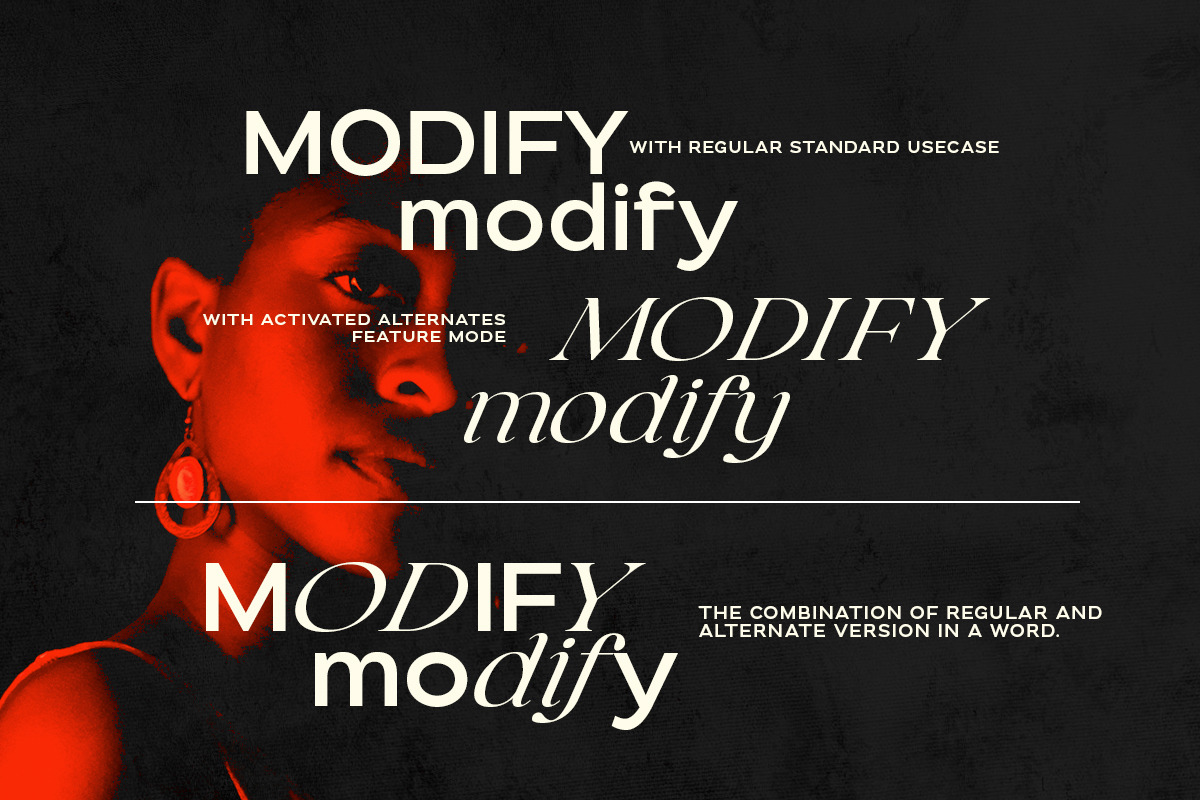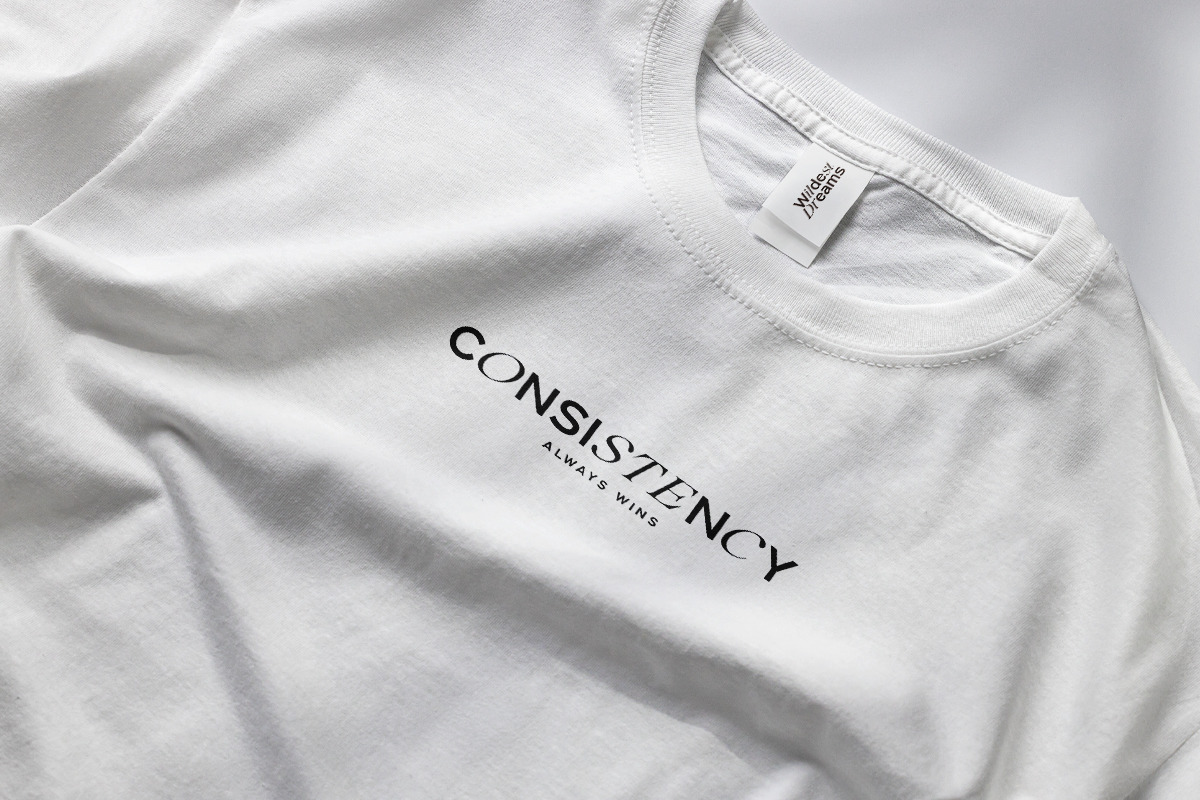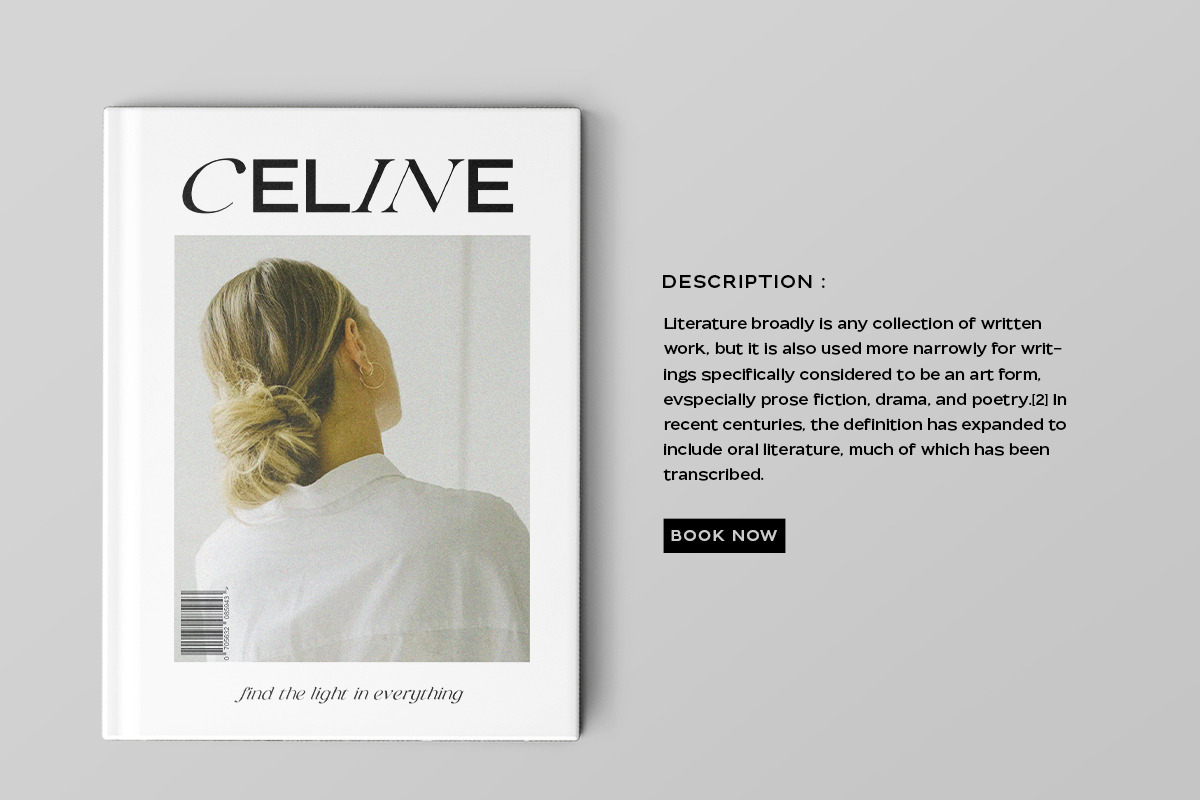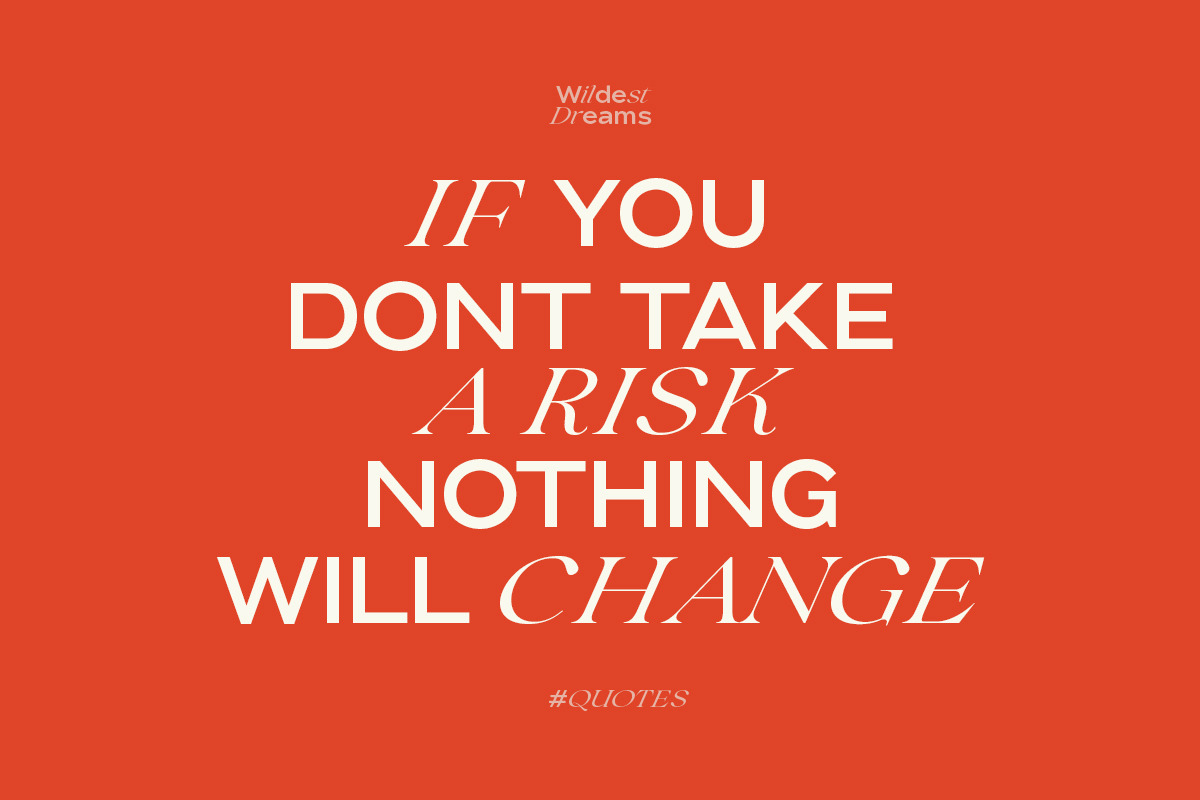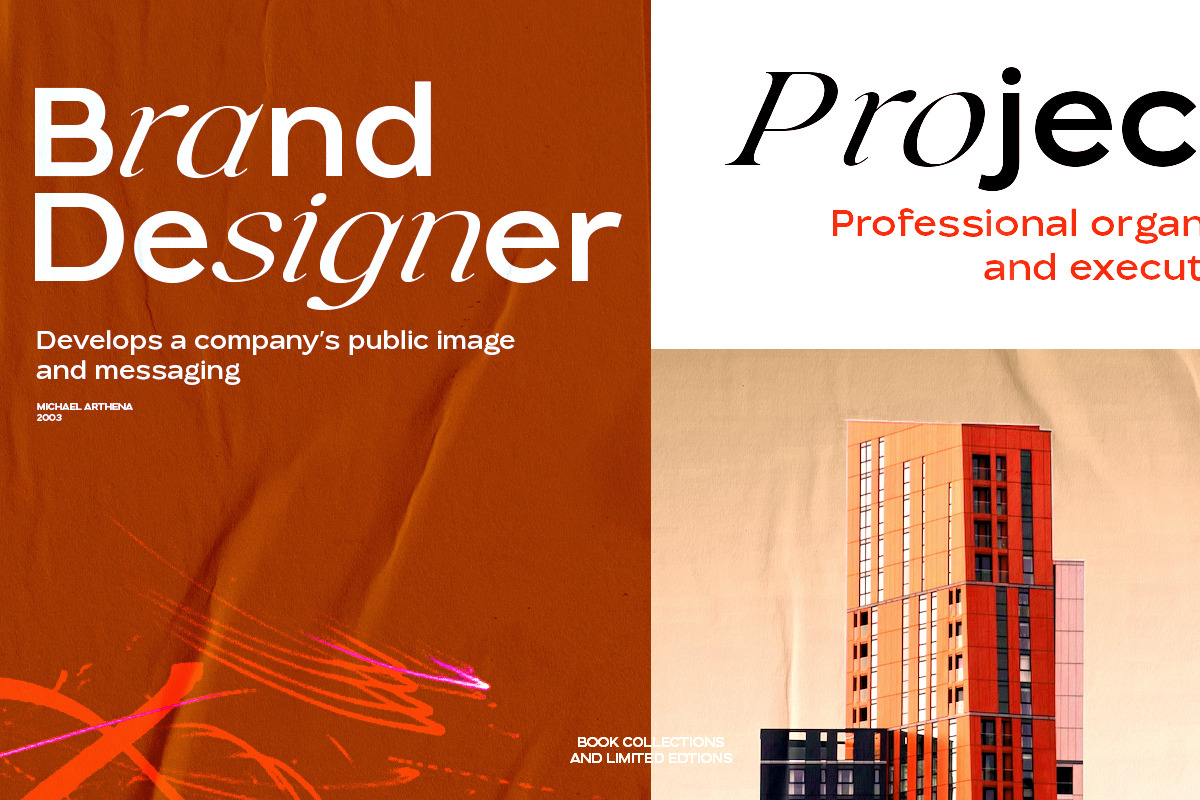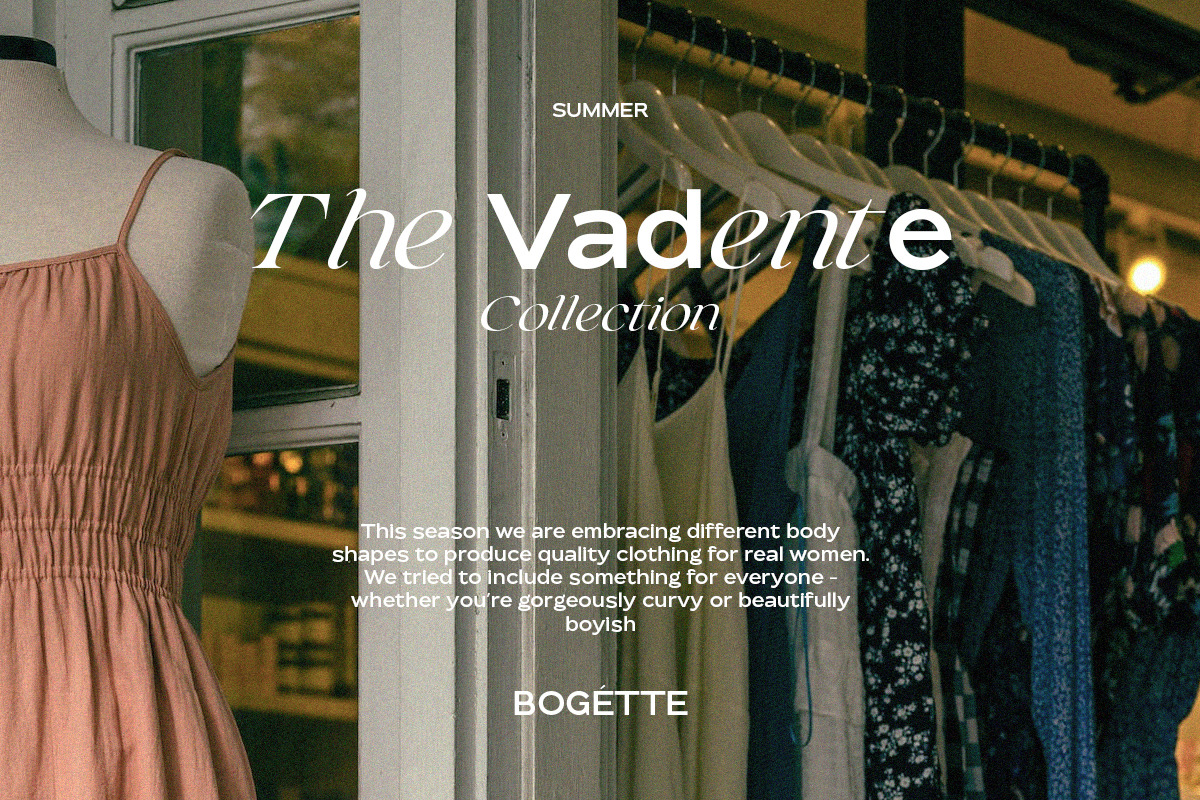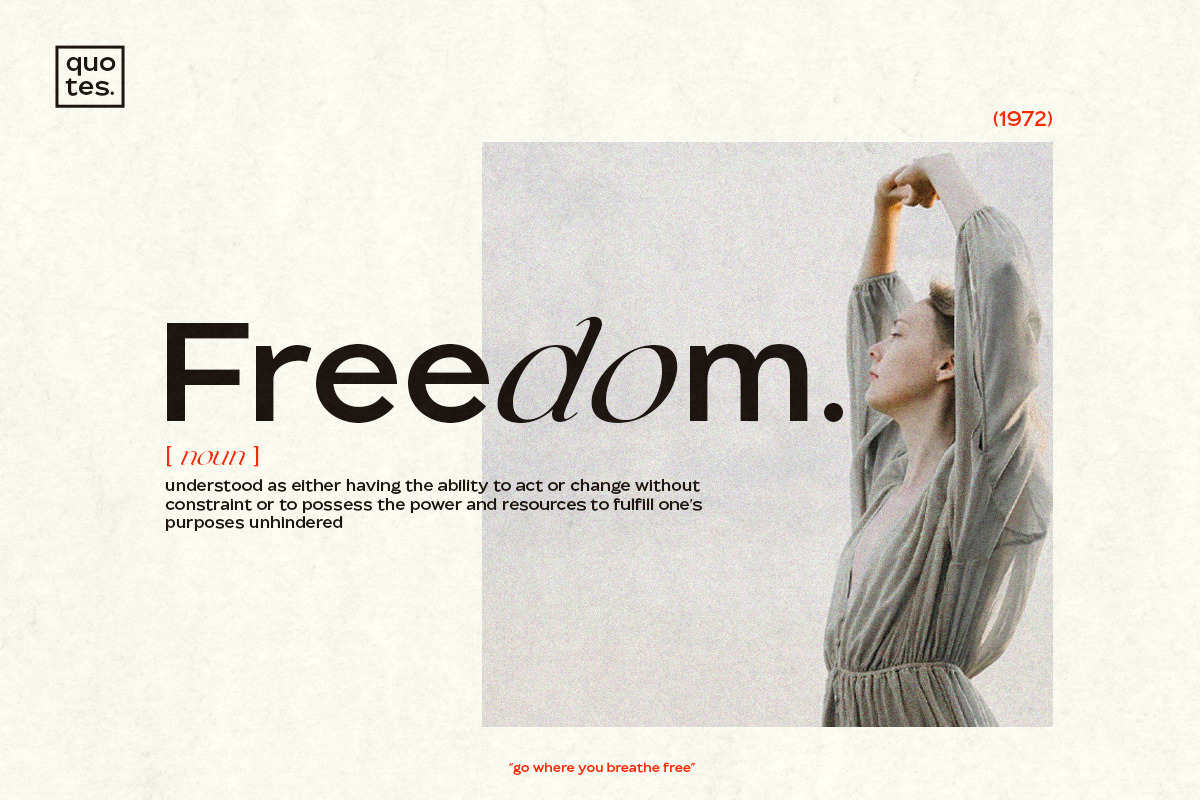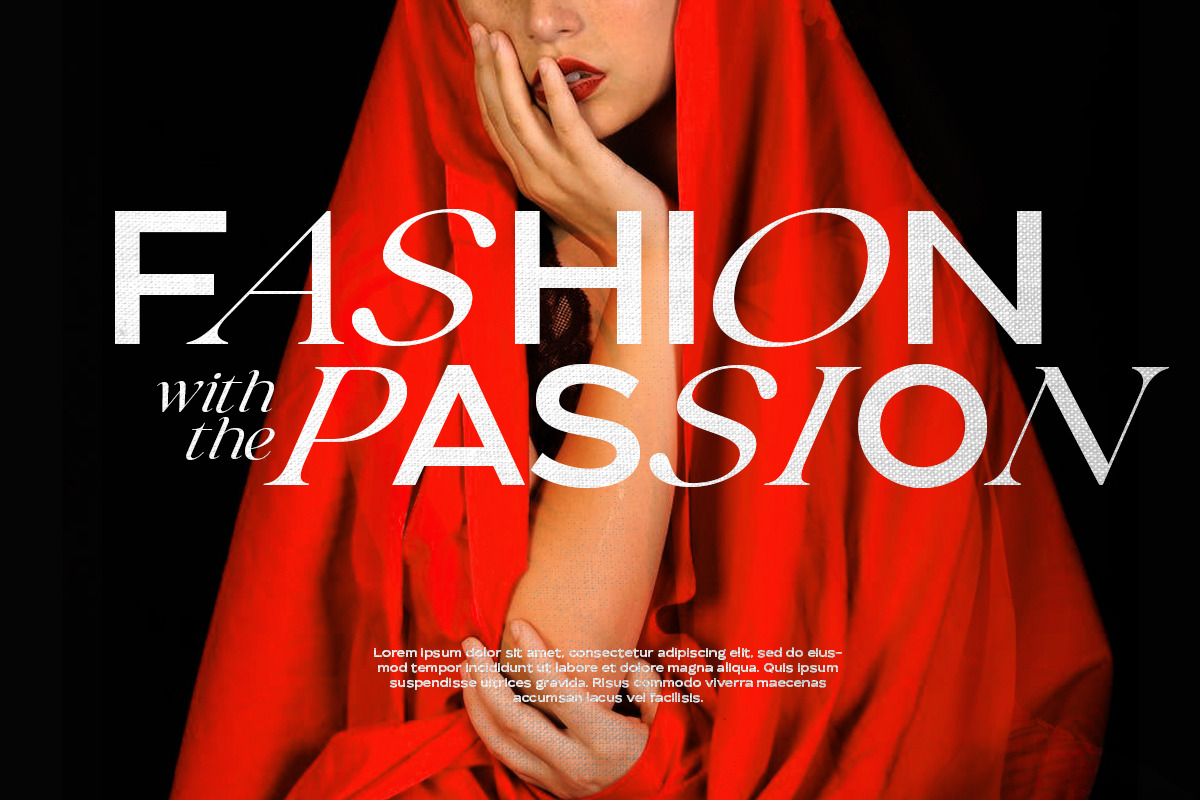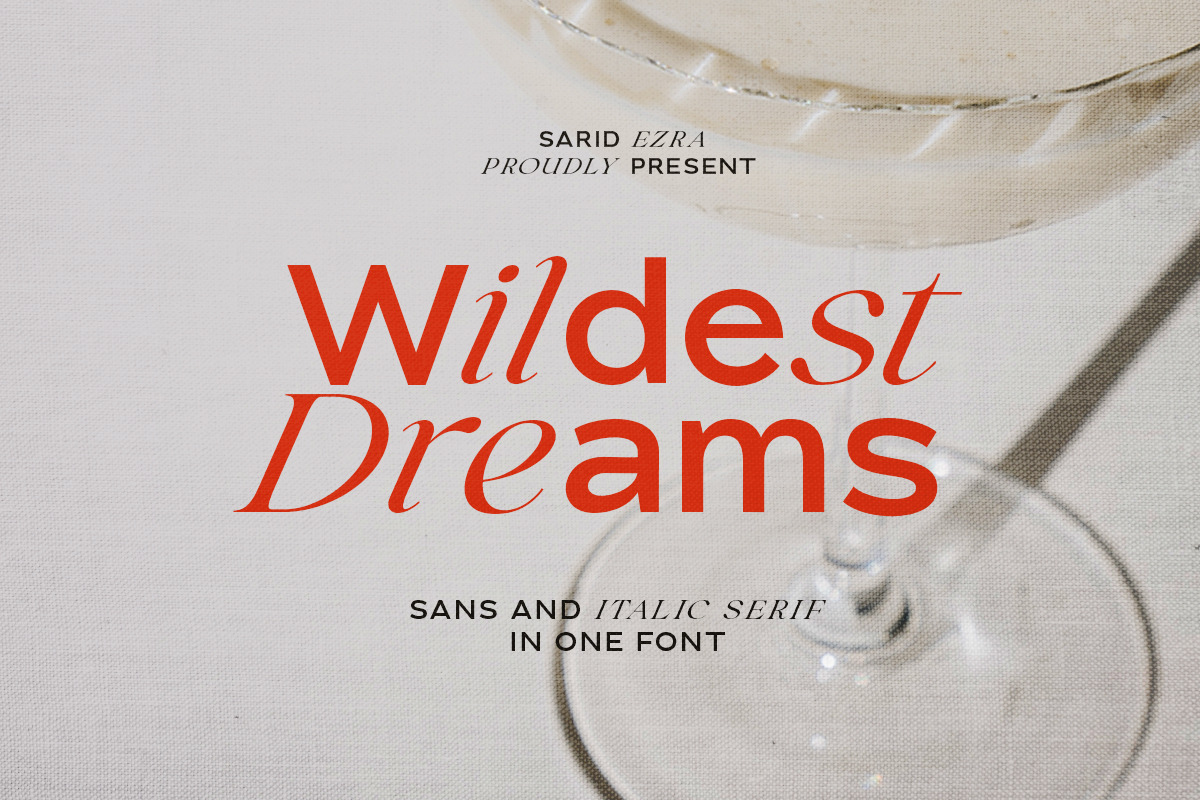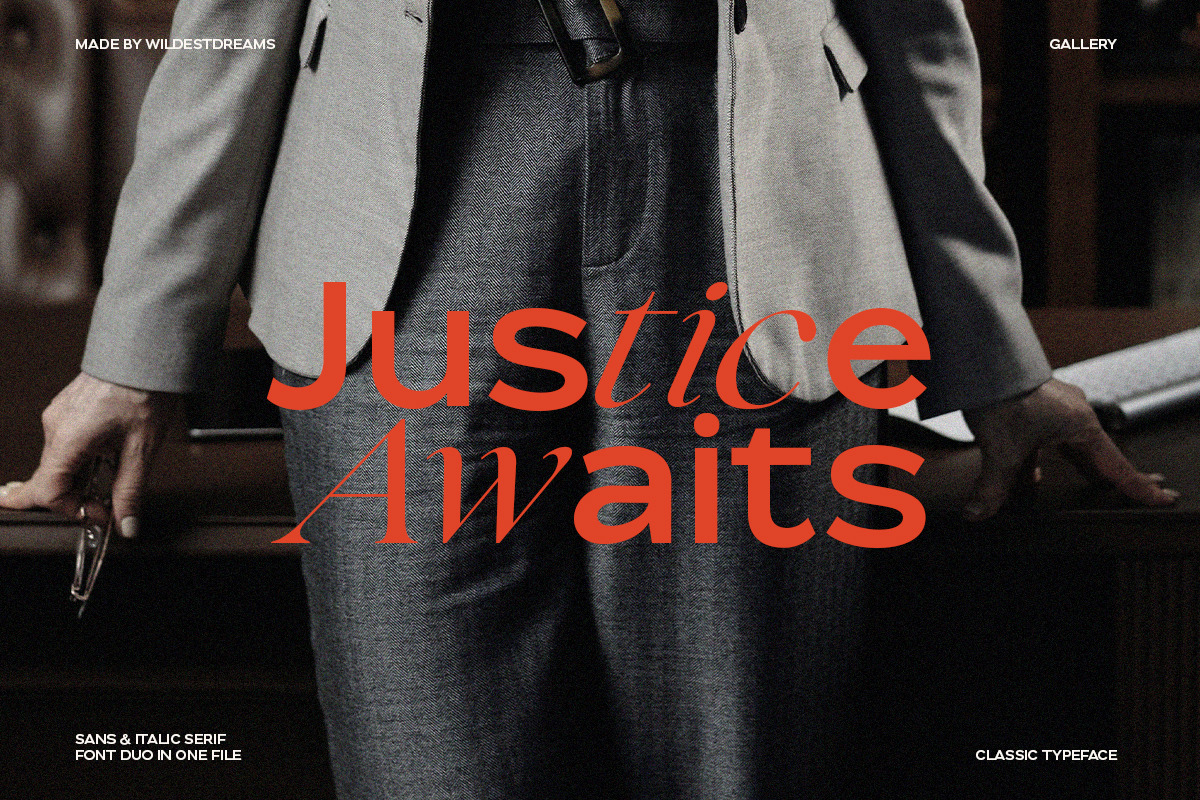
Wildest Dreams - Display Font
Introducing, Wildest Dreams, sans and italic serif in one font!
Wildest Dreams is a contemporary and elegant typeface that seamlessly merges sans-serif and serif into one font. The standard characters contains minimalist sans serif. The italic serif can be access from opentype features as an alternate each characters. You can combine the standard and alternates in a single word, resulting in exceptionally eye-catching text. You can use this font for the magazine, poster, and suitable for headline. Furthermore, this font support multiple languages, enhancing its inclusivity and practicality.